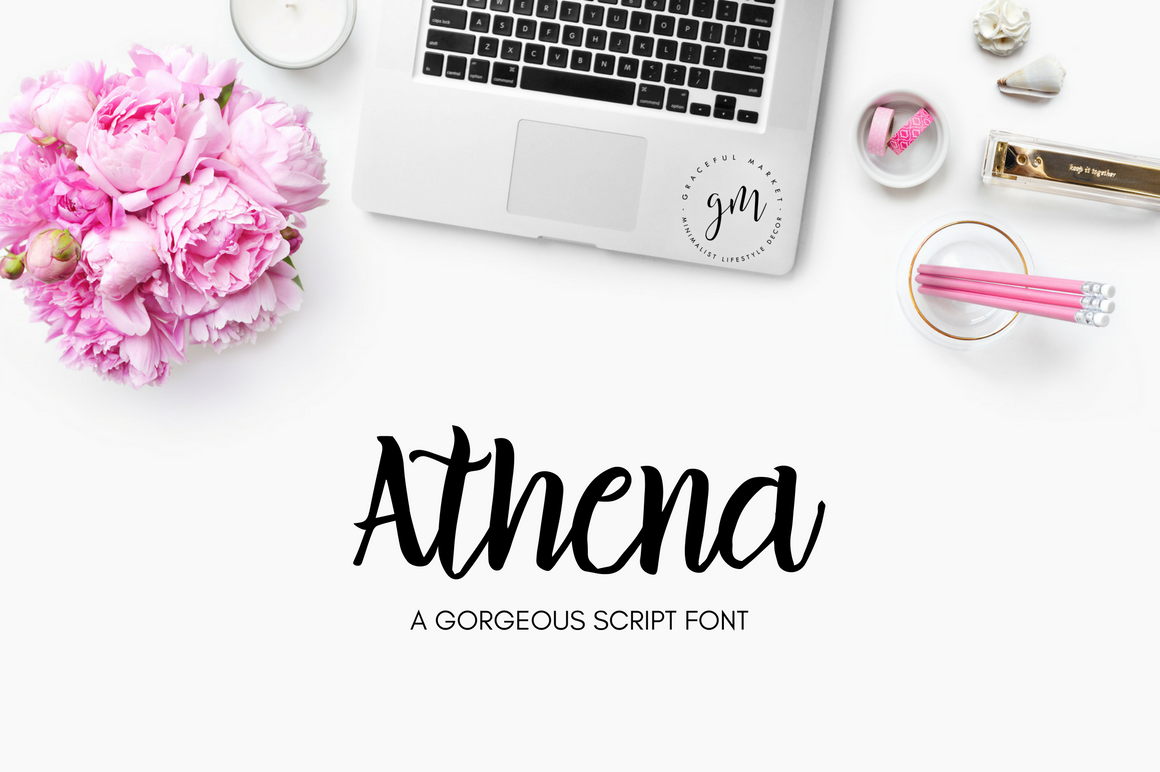
Athena | Gorgeous Script Font
Introducing Athena, a gorgeous handwritten calligraphy script font.
Athena is 100% handwritten straight from the paper. Great for wedding invitations, social media infographics, banners, etc.